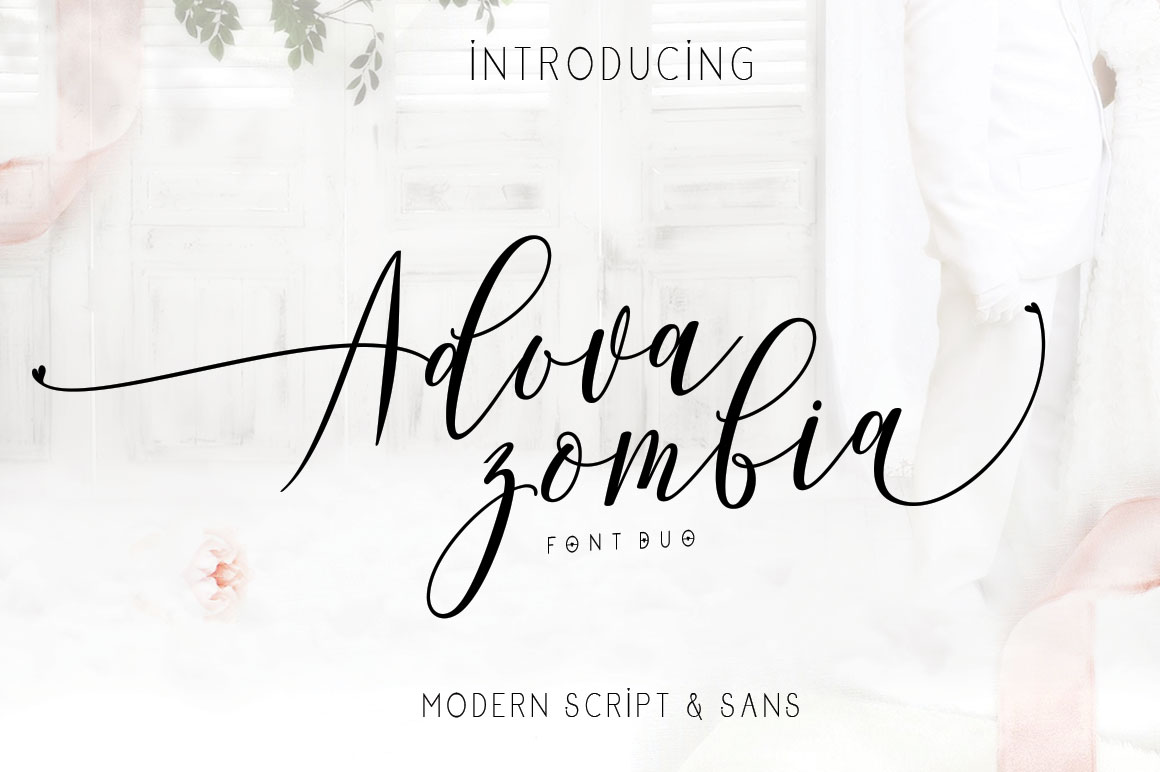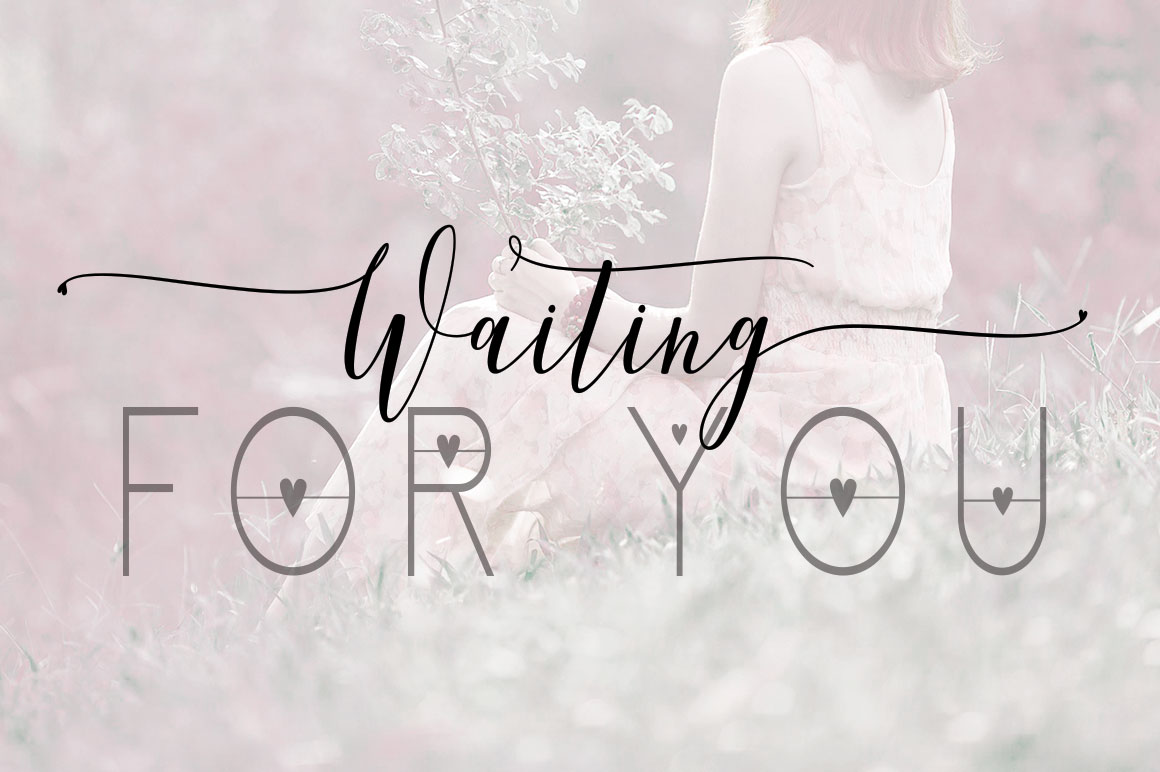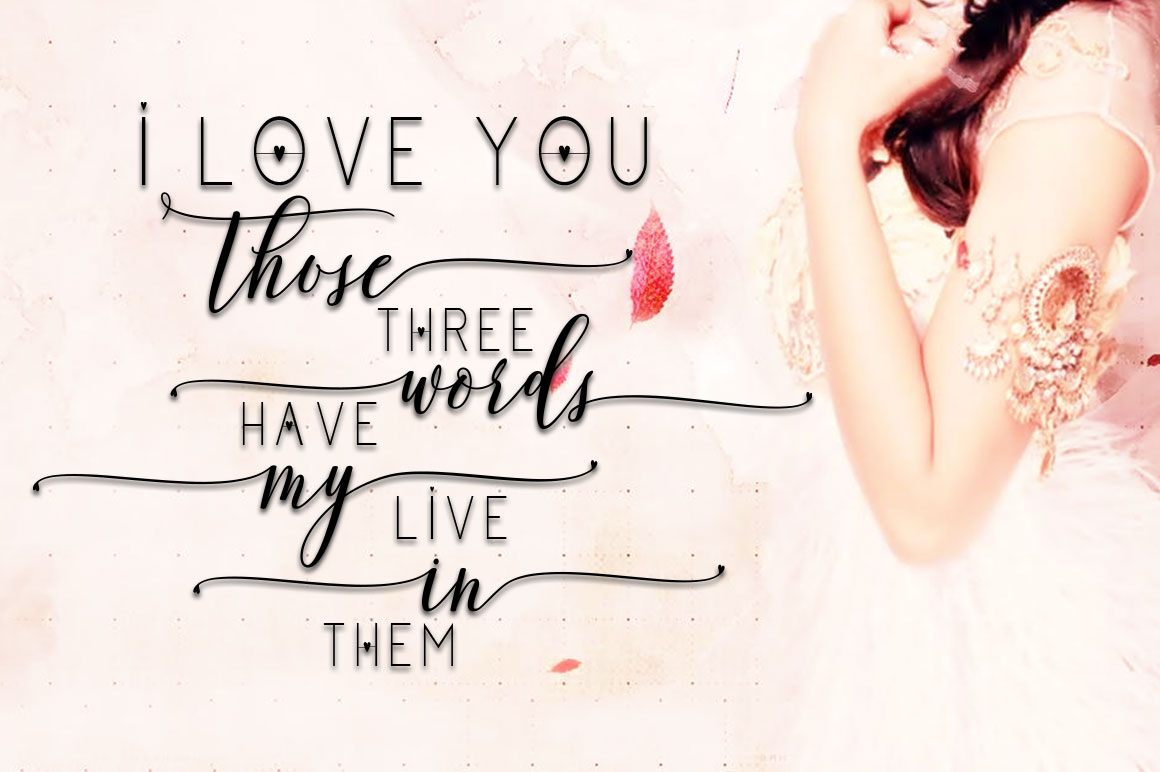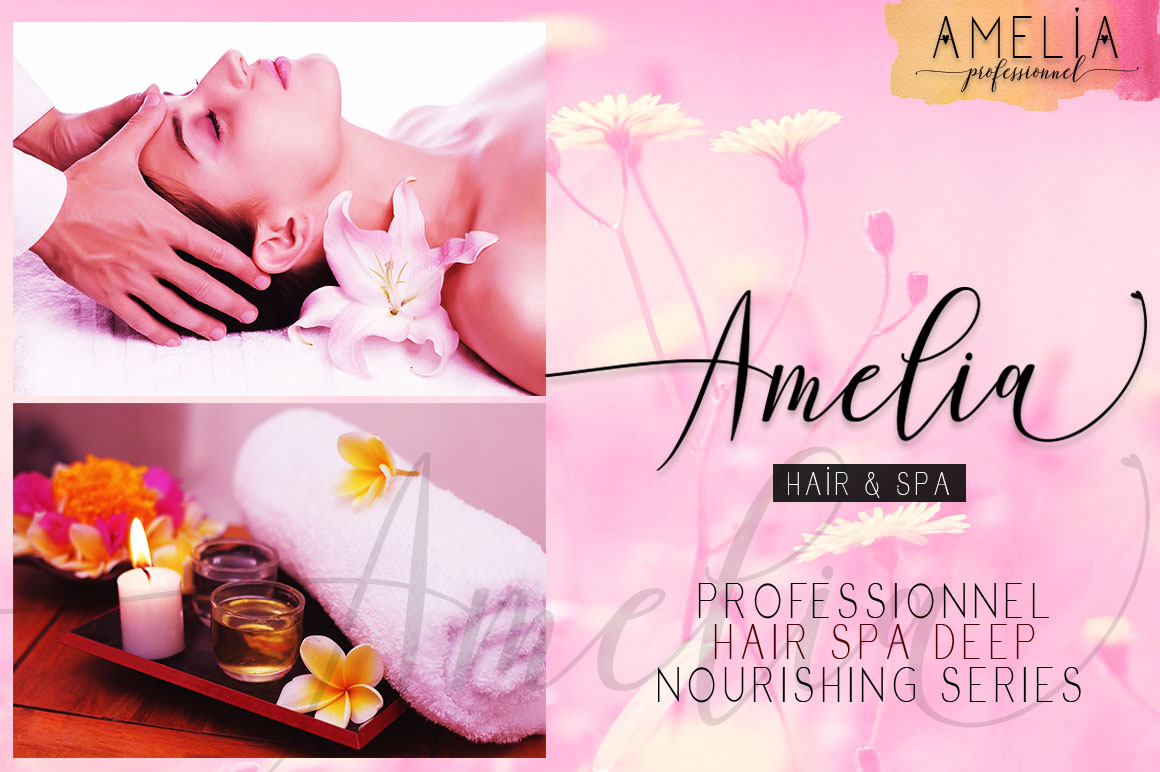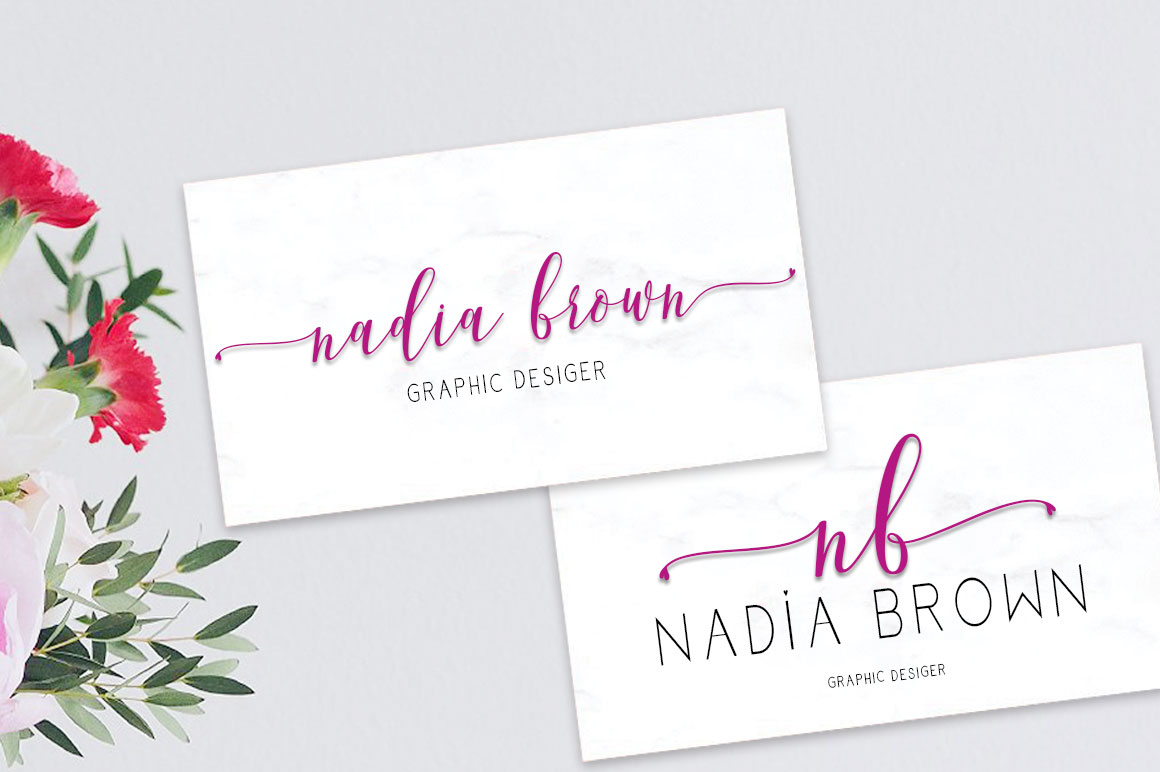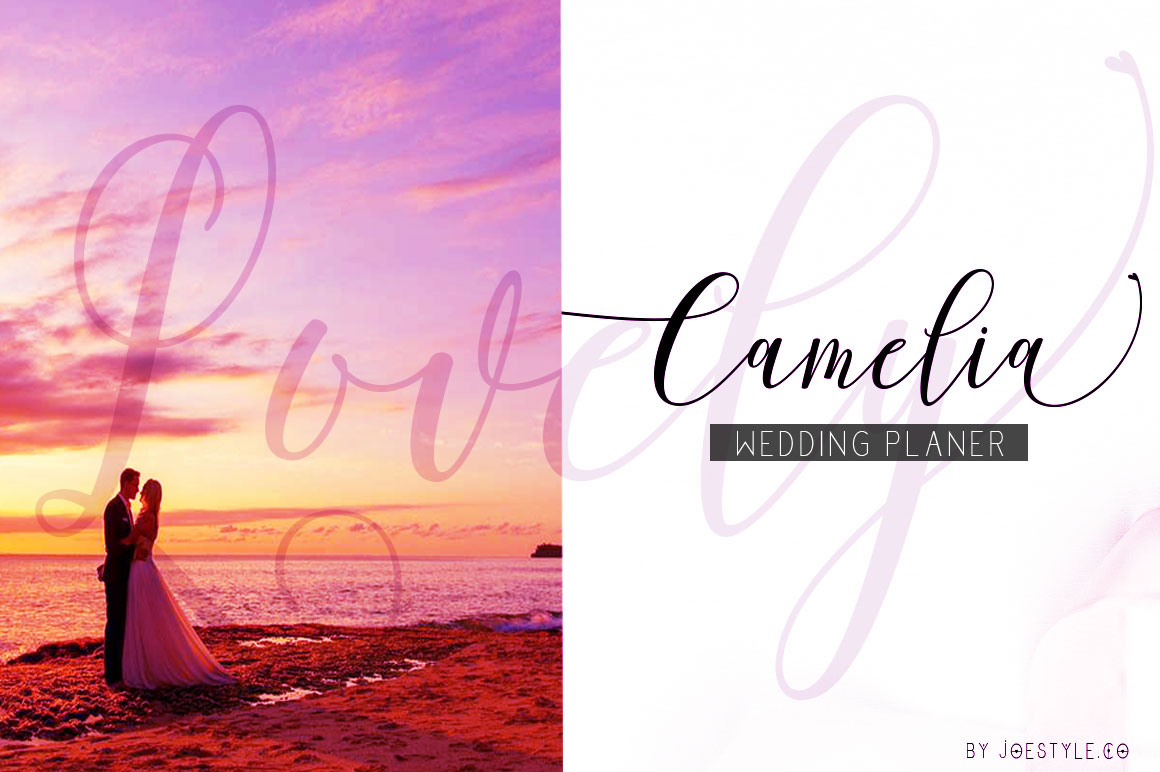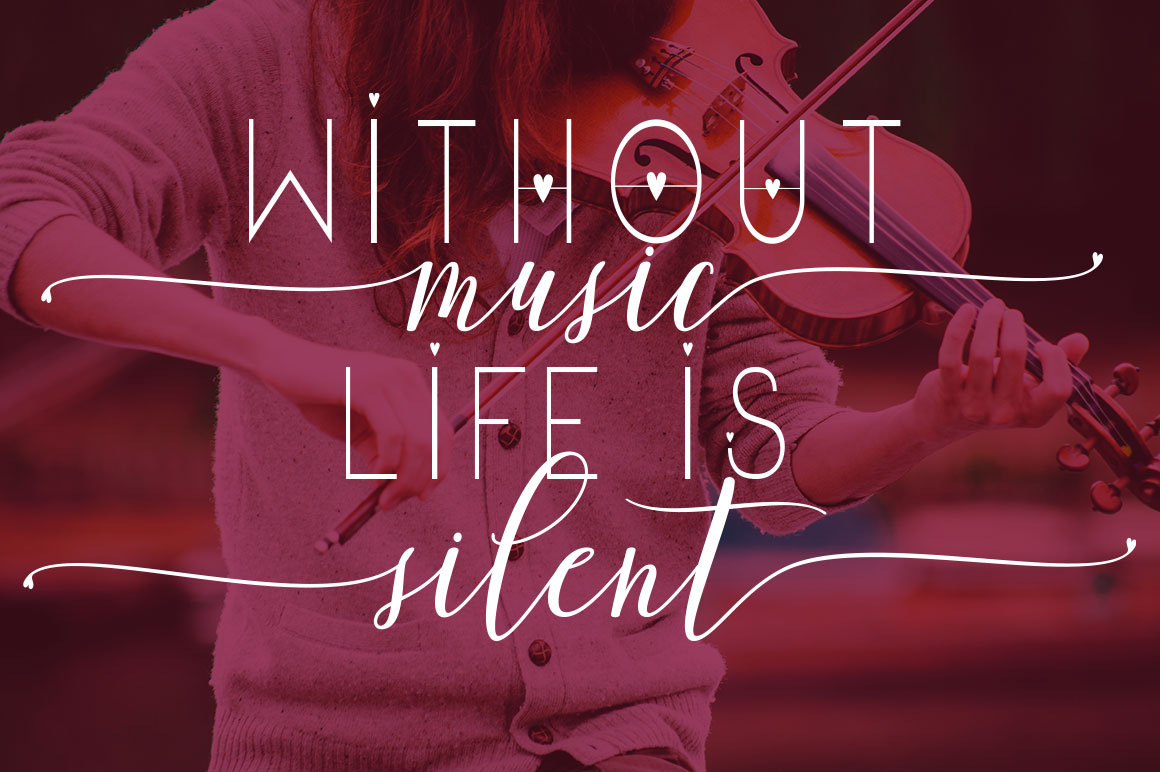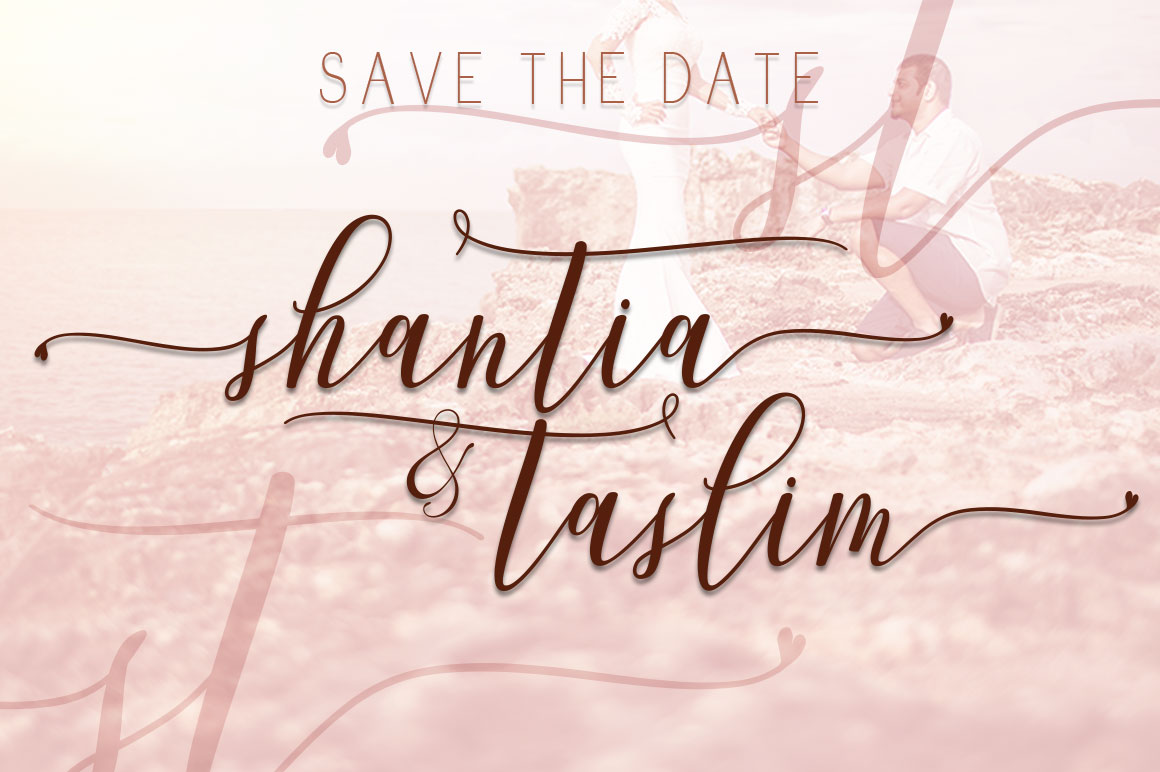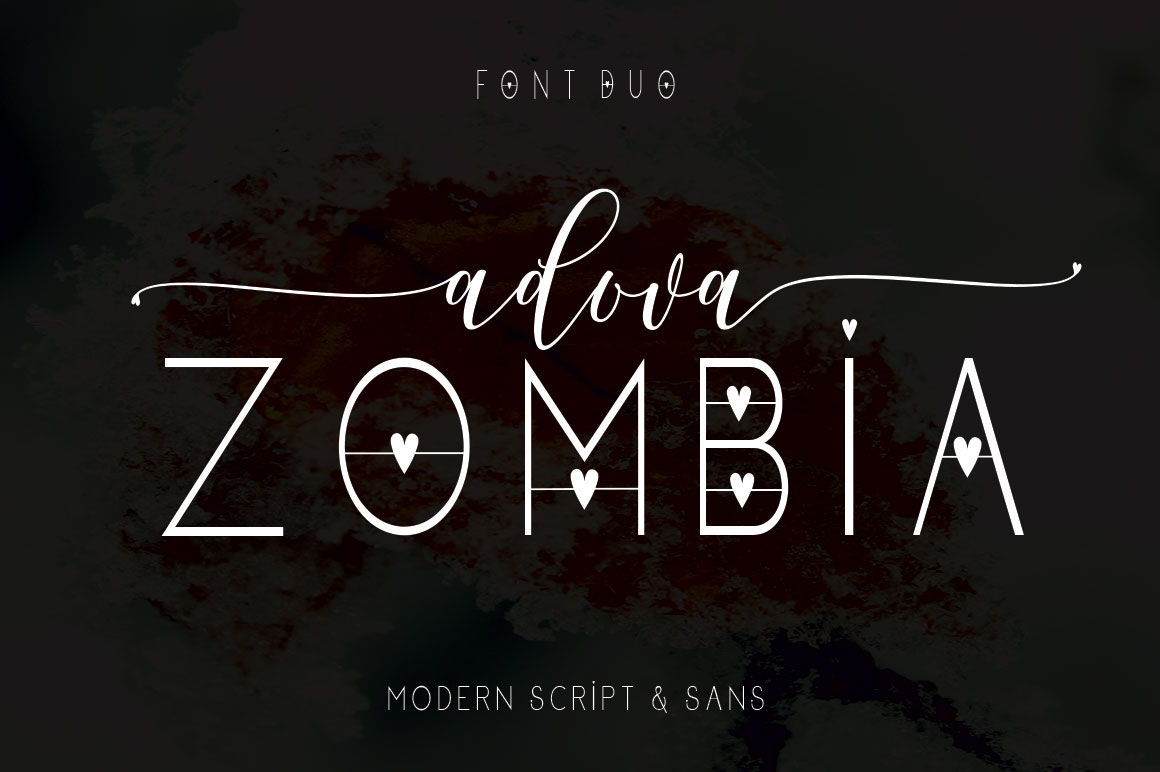
Adova Zombia Font
About Adova Zombia Font
Adova Zombia is a sophisticated font pairing, offering beautiful and harmonious style to any variety of projects. This font duo is elegant and stunning, and can elevate your creations.